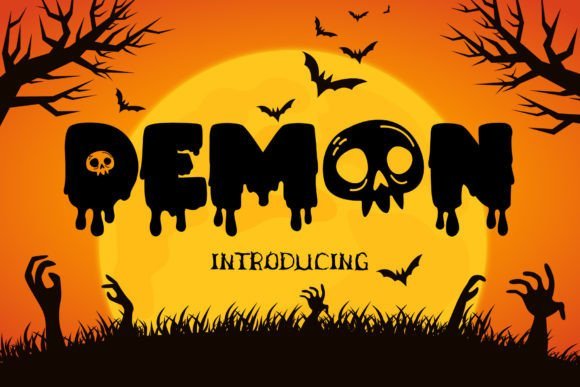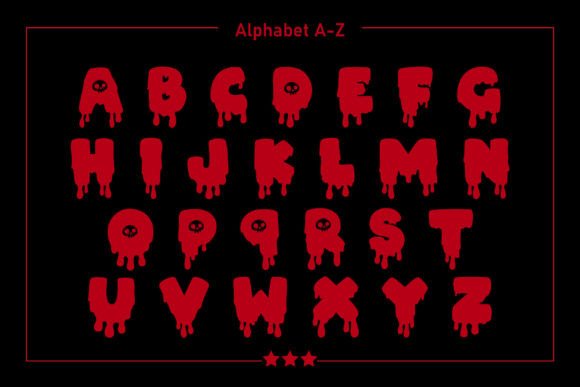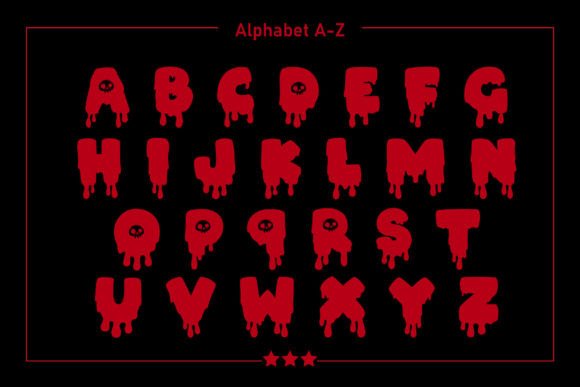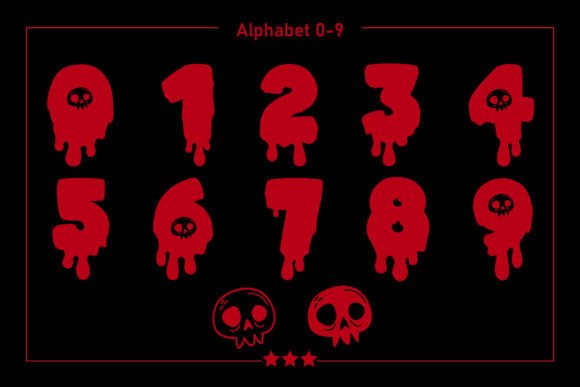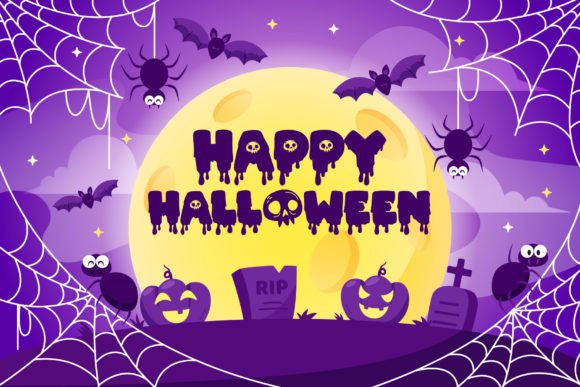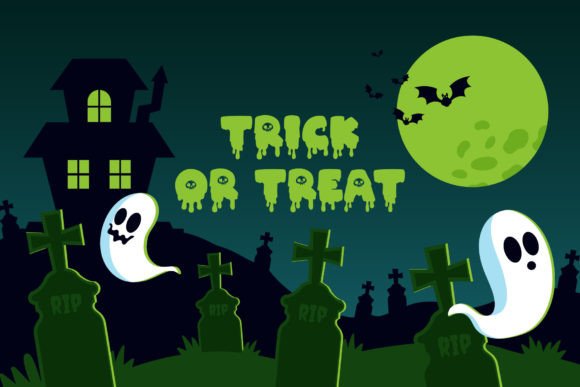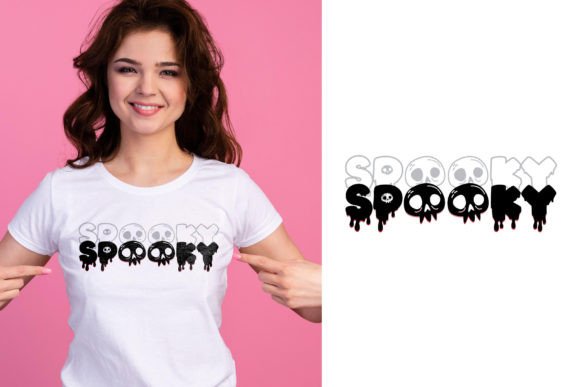
The Perfect Font for a Spooky Touch
Have you ever found yourself stuck on a design project, searching for the perfect font to bring your idea to life? You know the feeling: you’ve got a concept, but it’s missing that special something that will make it truly stand out. For designers working on Halloween-themed projects or children’s designs, that something is often a bold, eye-catching font that adds a touch of whimsy and fun.
Enter Demon Font, a versatile decorative font that’s perfect for a wide range of designs. With its bold and playful style, Demon Font is ideal for logos, t-shirts, and other print materials, as well as digital designs like website headers and image sliders.
As a designer, you know how valuable it is to have a reliable font that can add a touch of personality to your work. With Demon Font, you’ll have the flexibility to create unique and engaging designs that are sure to capture attention.
Demon Font Key Features
- Unique Character Set: Demon Font features a unique set of characters, including alternate glyphs and ligatures, designed to add a touch of darkness and mystery to any text.
- High-Quality Design: The font is carefully crafted with attention to detail, ensuring that each character is precisely designed to create a cohesive and striking visual effect.
- Wide Language Support: Demon Font supports a wide range of languages, including Latin, Cyrillic, and Greek, making it a versatile choice for designers and typographers.
- Customizable: The font can be customized using font editing software, allowing designers to create unique variations and styles tailored to their specific needs.
Demon Font Review
Overall, I’m impressed with the Demon Font, but as with any font, it has its strengths and weaknesses. Let’s dive into what I like about it.
- Unique and edgy design: The Demon Font is definitely one-of-a-kind, with its bold, gothic-inspired lines and intricate details.
- High level of customization: This font offers a wide range of customization options, from size and color to spacing and alignment.
- Works well for titles and headings: The font’s bold, dramatic feel makes it perfect for use in titles, headings, and other prominent text.
- Readability can be an issue: While the font is visually striking, it can be difficult to read, especially in smaller sizes or when used for large blocks of text.
- Limited font sizes: While customization options are available, the font sizes are limited, which can make it difficult to achieve a consistent look across different elements.
- May not be suitable for body text: Due to readability issues, I would not recommend using the Demon Font for body text, as it can be tiring to read.
Overall, the Demon Font is a great choice for designers who want to add a touch of edginess and drama to their designs. While it may have some limitations, it’s a great option for titles, headings, and other prominent text. Just be sure to use it sparingly and in conjunction with other fonts to maintain readability.